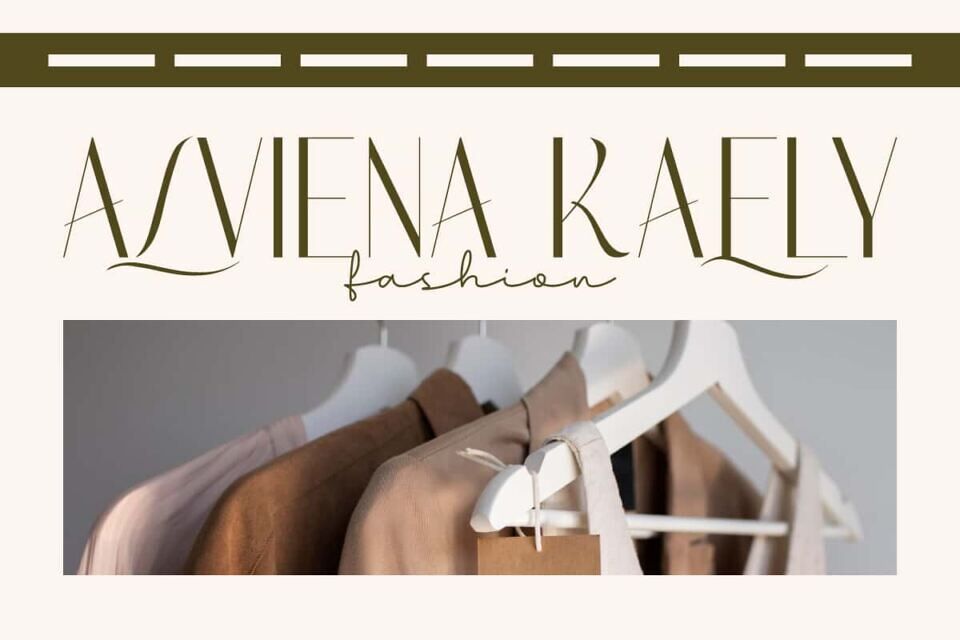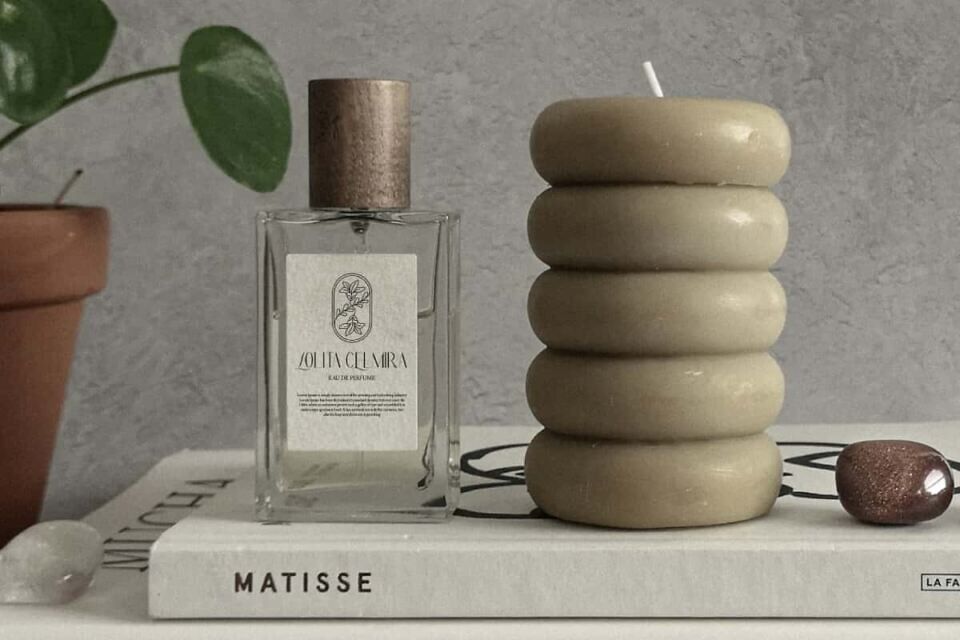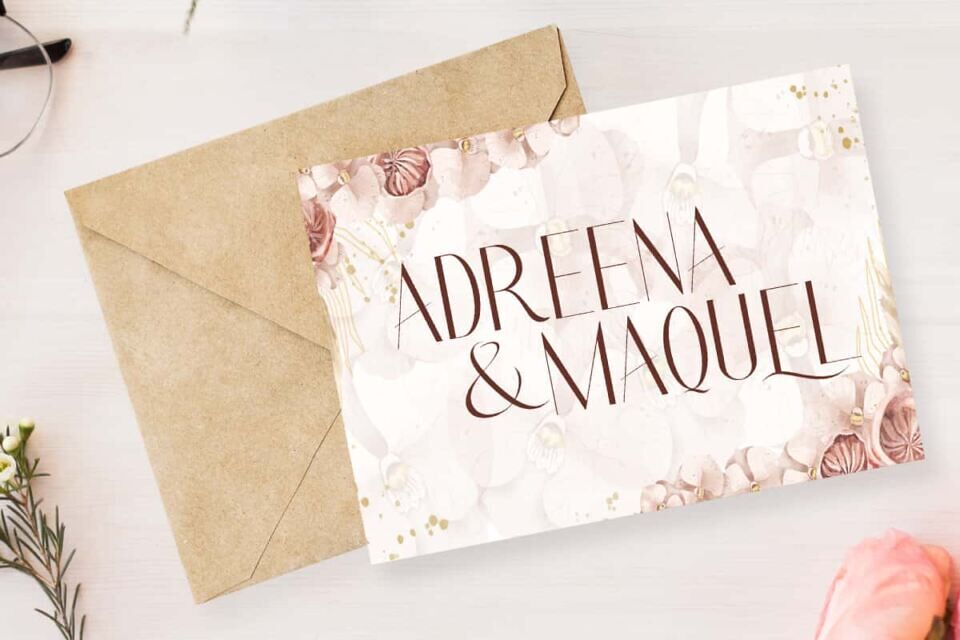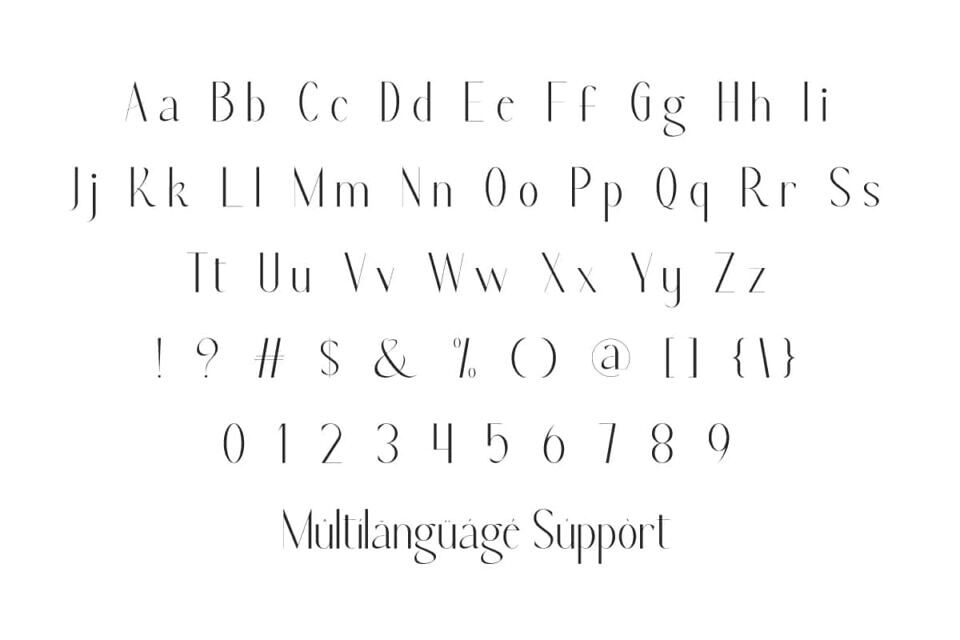
Alviena Kaely Font
Alviena Kaely Font is a modern sans serif font with unique and artistic characteristics. Each letter has a subtle typographic touch with distinctive thick and thin line details. This font will be perfect for any projects, can be used for advertisement, brand image, custom design, invitation, label, layout design, quotes, stationery, template design, website, and more!
Alviena Kaely Font includes full set of Uppercase and Lowercase Basic Characters, Numerals, Punctuation, Symbol, and Ligature character. This font creates a balance between classic elegance and modern aesthetics. Making it a perfect choice for a variety of fields, such as accessories and jewelry, beauty product, event or wedding organizer, fashion, florist, furniture, real estate, spa salon, etc.